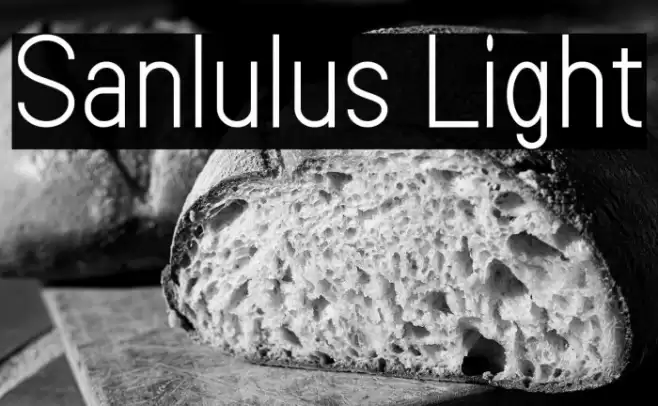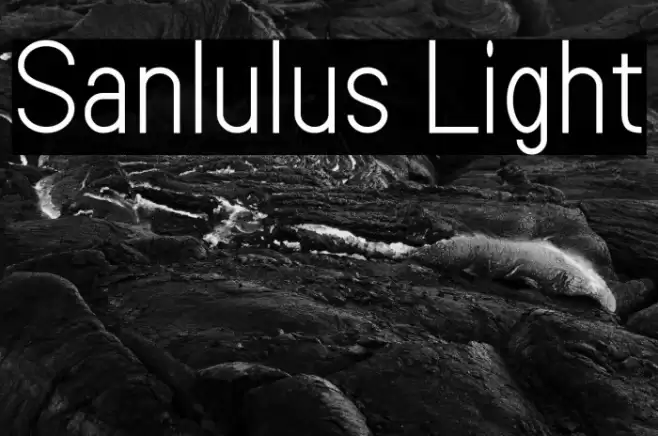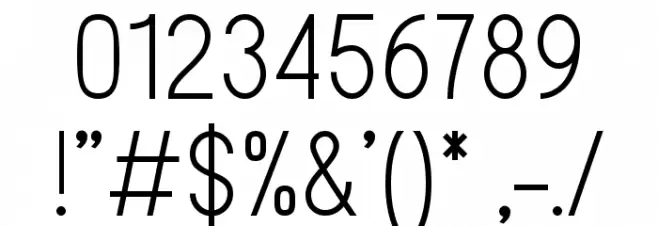
Sanlulus Light Font
Sanlulus Light Description
This font features a clean and modern sans-serif design with a light weight, making it ideal for minimalist and contemporary projects. The characters are evenly spaced with a normal width, providing excellent readability. The uppercase and lowercase letters maintain a consistent style, with smooth curves and straight lines that contribute to its sleek appearance. The numerals and special characters are designed to match the overall aesthetic, ensuring uniformity across all text elements. This font's simplicity and elegance make it versatile for various applications, from digital interfaces to print media.
A modern, light sans-serif font with clean lines and excellent readability from Regular fonts.
- Proposed Projects: Ideal for websites, mobile apps, branding, and editorial design.